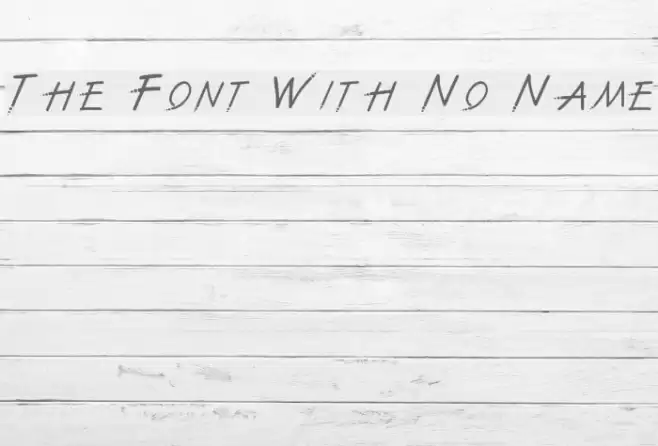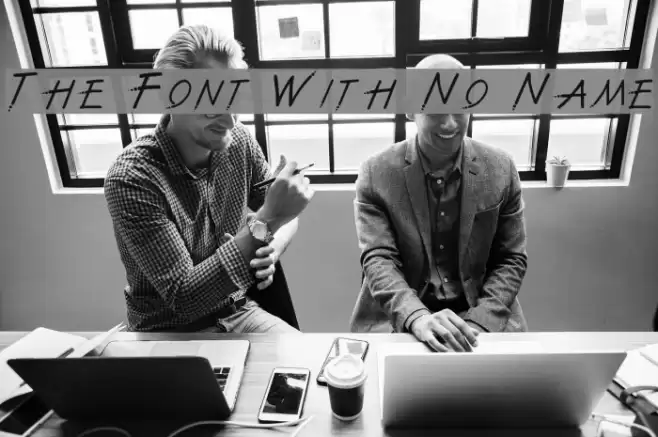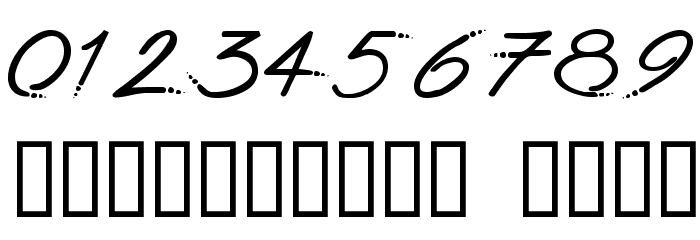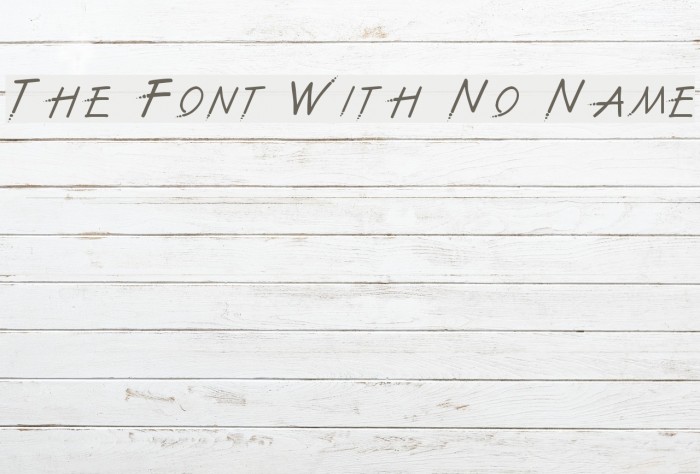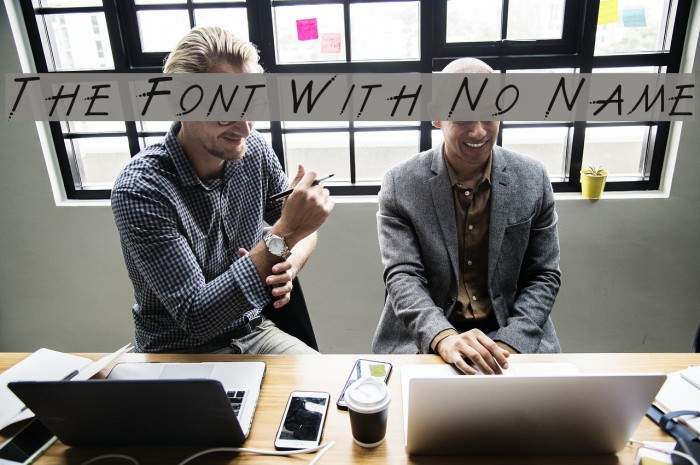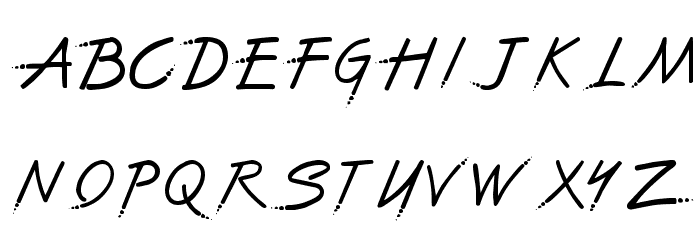
The Font With No Name Font
The Font With No Name Description
This font features a dynamic and energetic script style, characterized by its slanted, cursive letterforms. The strokes are fluid and exhibit a playful, handwritten quality, with a slight roughness that adds texture and personality. The uppercase letters are bold and expressive, while the lowercase letters maintain a consistent flow, enhancing readability. The numerals are well-integrated, matching the overall aesthetic with their curved and slightly exaggerated forms. The special characters complement the set, maintaining the same lively and informal style. This font is ideal for projects that require a personal touch, such as invitations, greeting cards, or branding materials that aim to convey creativity and warmth.
A lively and expressive script font with a handwritten, textured style from Decorative fonts.